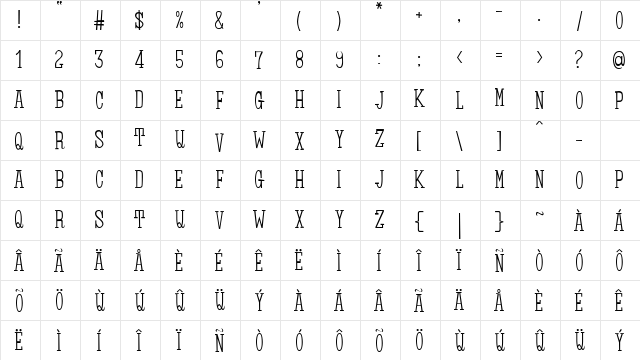
Mr. Mustage Regular Free Font
Mr. Mustage Regular
Design Context for Mr. Mustage
Mr. Mustage is a composed and adaptable typeface that performs quietly and consistently across a wide range of design contexts.
Pro Tip: Use Mr. Mustage in both headline and body roles to test its range before committing to a single application.